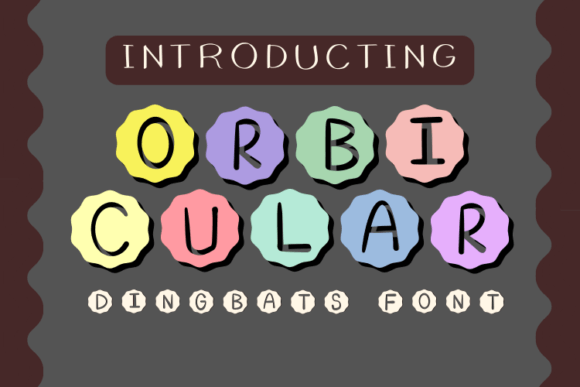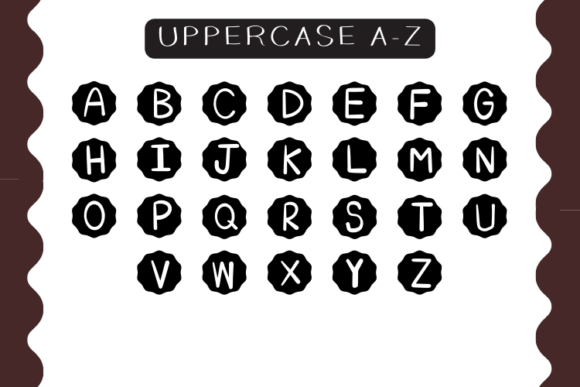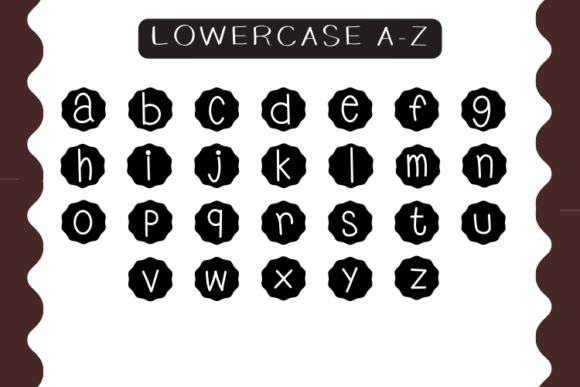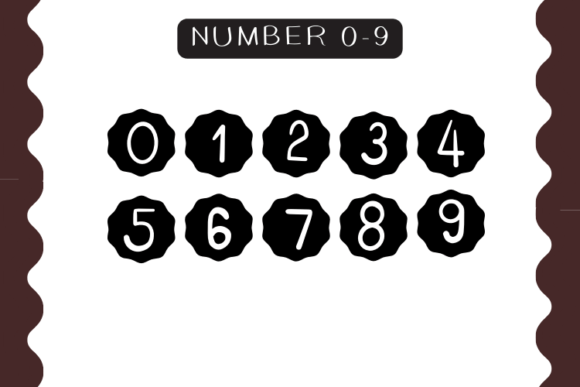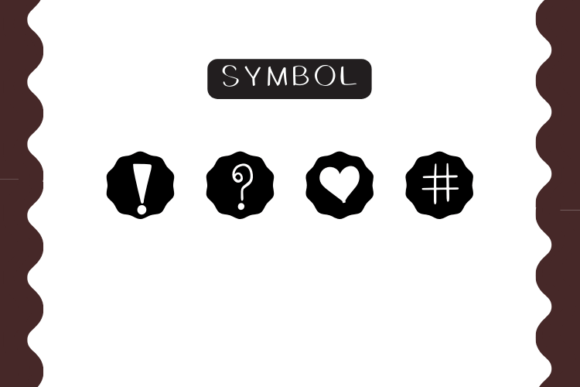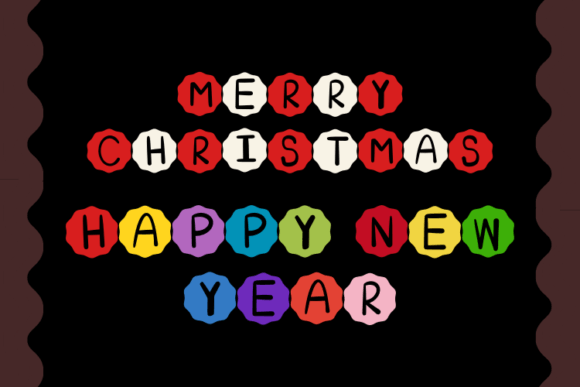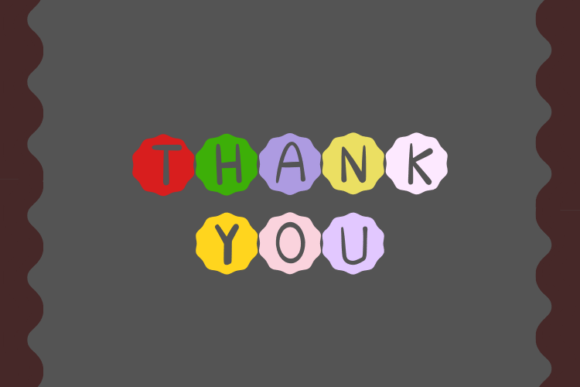
Orbicular Font
ABOUT ORBICULAR FONT
Orbicular is a versatile dingbats font specifically designed to decorate textbooks and various educational activities. Whether you’re creating worksheets, exercises, game activities, or digital teaching aids, this font offers a range of decorative elements to enhance your educational materials.
The unique symbols and illustrations included in Orbicular are perfect for adding visual interest and engagement to textbooks. They can be used as decorative accents, bullet points, dividers, or section headers, allowing you to organize and structure content in a visually appealing way. By incorporating these dingbats into your educational materials, you can create a more engaging and interactive learning experience for students.
In addition to textbooks, Orbicular is well-suited for worksheets and exercises. The font’s decorative elements can be used to indicate instructions, highlight key points, or even create thematic borders for worksheets. This adds a touch of creativity and visual appeal to traditional learning materials, making them more enjoyable and motivating for students.
Game activities are another area where Orbicular shines. Whether you’re designing educational board games, flashcards, or interactive quizzes, this font’s dingbats can be used as game pieces, counters, or even as decorative elements on game boards. By incorporating these visual elements, you can make learning more fun and interactive, encouraging active participation and knowledge retention.
Digital teaching aids, such as presentations or digital worksheets, can also benefit from the decorative elements of Orbicular. By using this font to embellish and enhance your digital materials, you can create visually engaging and interactive learning experiences for students in online or blended learning environments.
In summary, Orbicular is a dingbats font specifically designed to decorate textbooks and educational activities. Its decorative symbols and illustrations can be used to enhance worksheets, exercises, game activities, and digital teaching aids. By incorporating these visual elements, you can create more engaging and interactive educational materials, fostering a positive learning experience for students.